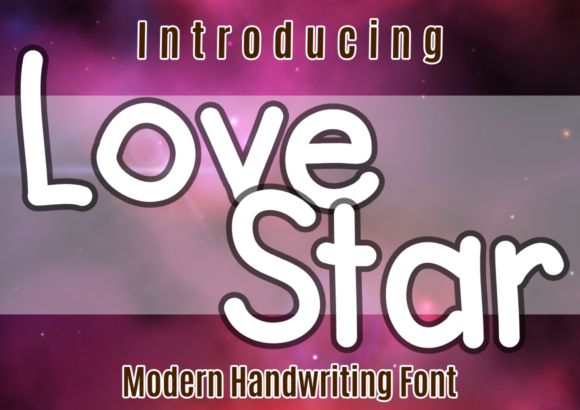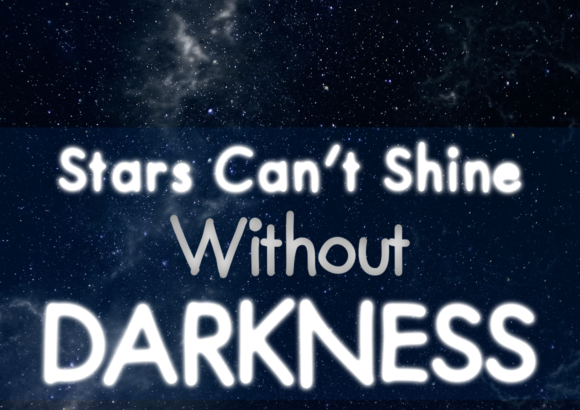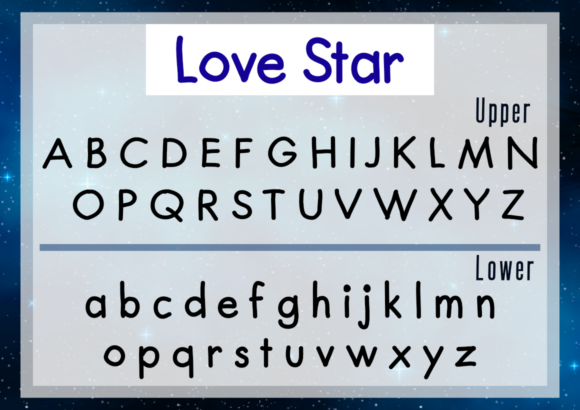
Love Star Font
About Love Star Font
Love Star is a sweet, soft hand-lettered handwritten font. Whether you’re looking for fonts for Instagram or calligraphy scripts for DIY projects, this font will turn any creative idea into a true piece of art!